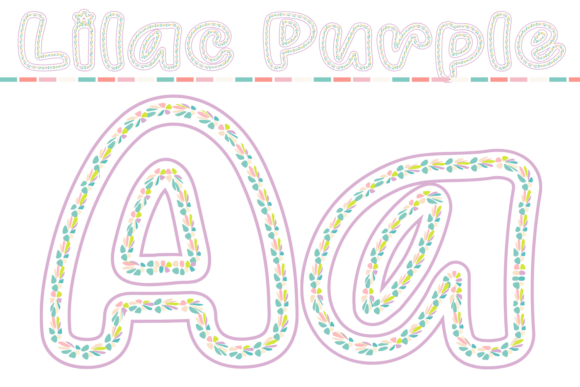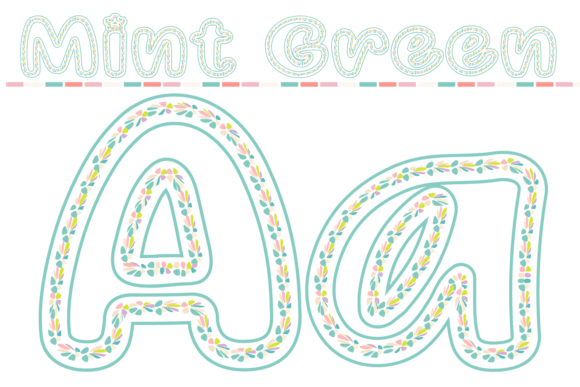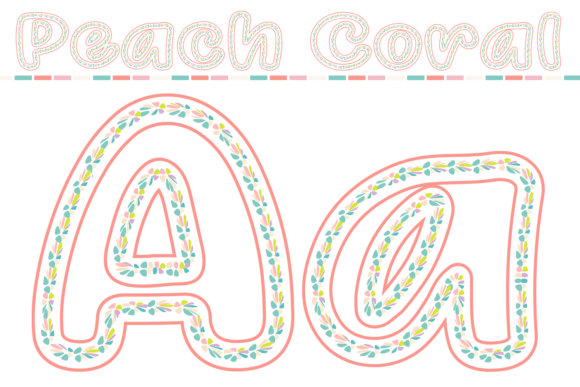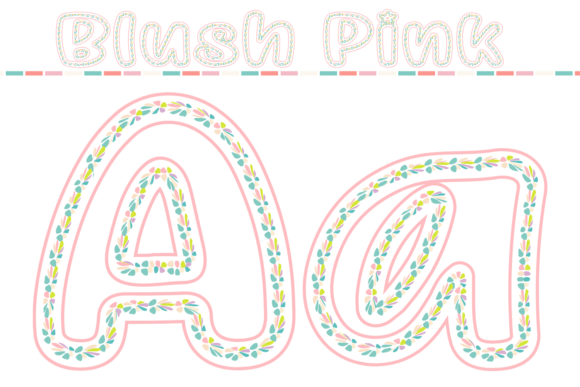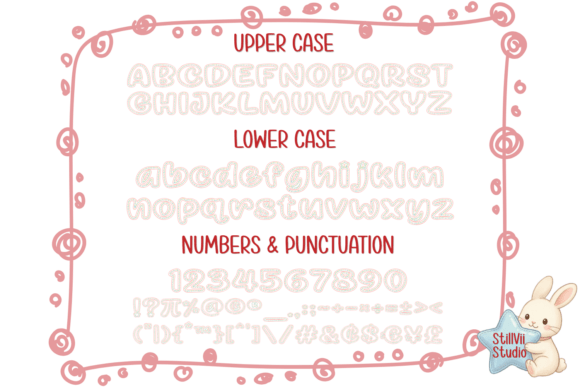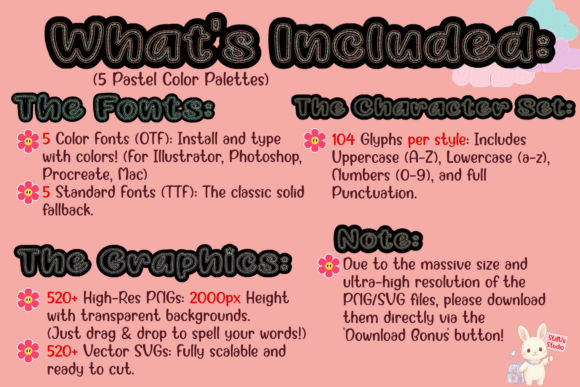
Introduction to Pastel Mosaic Font Bundle Font
Do you remember that moment when you’re working on a creative project, and you need just the right touch to make it go from good to great? Maybe it’s a custom tumbler design, a birthday card for a loved one, or a sticker sheet for a crafty friend. Whatever it is, the right font can make all the difference.
That’s where the Pastel Mosaic Font Bundle Font comes in – a beautifully crafted typography collection that’s sure to add a touch of magic to your designs. This stunning font bundle is packed with 5 adorable pastel color palettes, each one carefully crafted to give your projects a unique and eye-catching look. Whether you’re a seasoned designer or just starting out, this design resource is a must-have for anyone looking to elevate their creative projects.
With its intricate stained glass patterns and delicate stitched outlines, the Pastel Mosaic Font Bundle Font is the perfect addition to any design toolkit. And the best part? It’s available for free download, making it an accessible and valuable resource for designers of all levels. So why wait? Get ready to unleash your imagination and start creating something truly special with the Pastel Mosaic Font Bundle Font.
Key Features of Pastel Mosaic Font Bundle Font
- High-quality, unique font bundle with 20+ pastel-colored fonts, perfect for creative projects and designs.
- Each font features a transparent background, allowing for easy customization and versatility in design.
- Unique pastel color palette offers a soothing and calming aesthetic, ideal for branding, typography, and editorial designs.
Honest Review: Pastel Mosaic Font Bundle Font
I recently stumbled upon the Pastel Mosaic Font Bundle Font, and I’m excited to share my thoughts with you. As a designer, I’m always on the lookout for unique and high-quality design resources to enhance my creative projects. This font bundle did not disappoint!
- ✨ The font bundle includes a variety of pastel-colored fonts that are perfect for creating visually appealing designs.
- ✨ The transparent background option allows for seamless integration with other design elements.
- ✨ The font bundle is ideal for designers working on projects that require a soft, whimsical touch.
- ⚠️ The font bundle is a bit limited in terms of customization options, which may not be suitable for designers who require a high degree of flexibility.
- ⚠️ Some of the fonts may not be suitable for large-scale or professional projects due to their casual, playful nature.
Overall, I’m impressed with the Pastel Mosaic Font Bundle Font. While it may have some limitations, it’s a great resource for designers working on creative projects that require a touch of whimsy and personality. I’d definitely recommend it for free download and exploration!
When using the Pastel Mosaic Font Bundle Font, consider the following tips: Use it for creative projects that require a soft, pastel look. Experiment with different font sizes and styles to create visual interest. Combine the font with transparent backgrounds to create a unique design element.
The Pastel Mosaic Font Bundle Font is ideal for a variety of design projects, including: Social media graphics, blog posts, and website headers. It’s also perfect for creating free download resources, such as printables and templates. With its high-quality design and transparent background, this font is a valuable addition to any design resource collection.